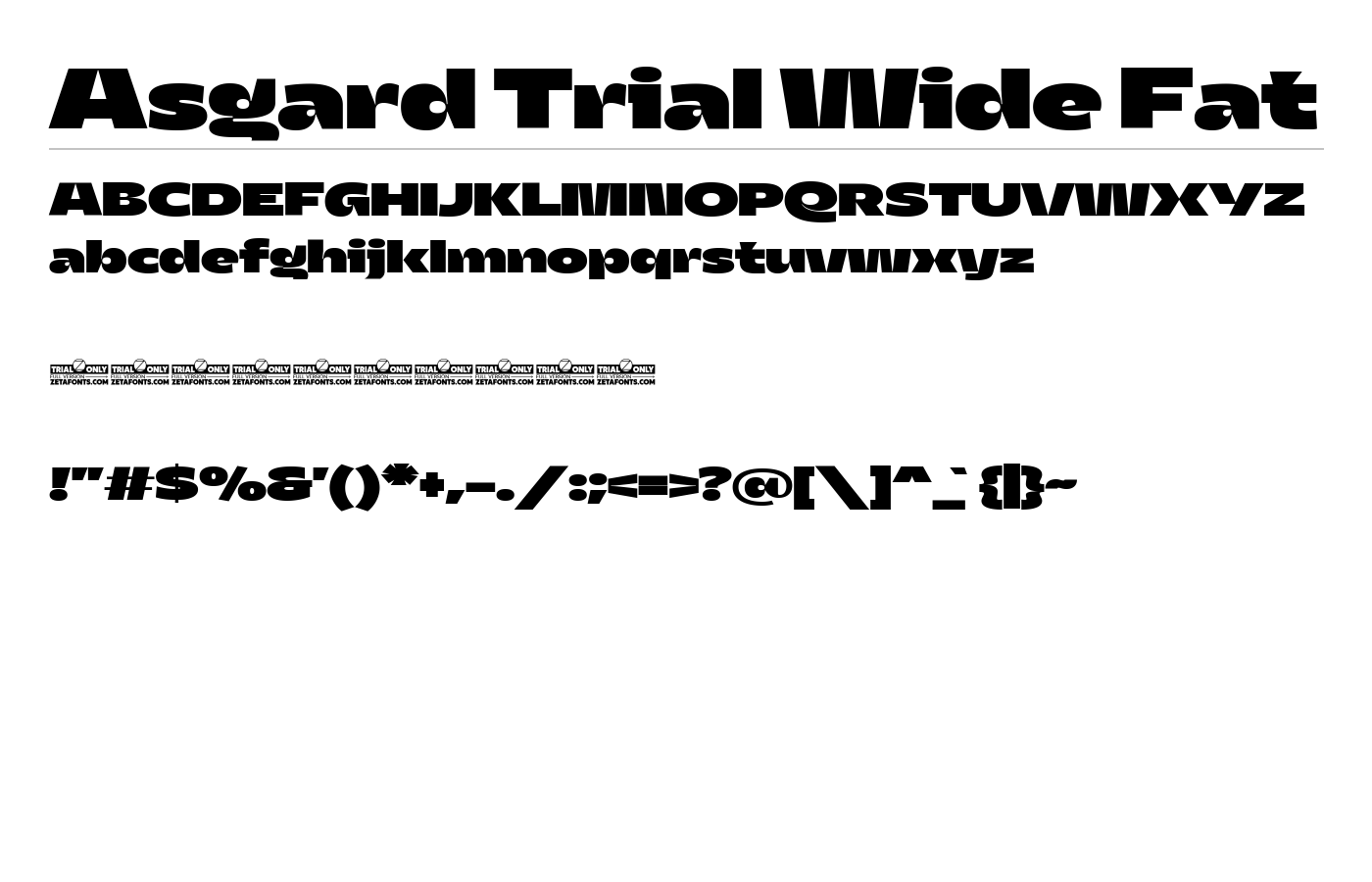
Asgard Trial is a bold, wide sans-serif font with a strong, geometric feel and playful curves that add character to its otherwise robust letterforms. Its heavy weight and high contrast make it ideal for impactful headlines or branding that demands attention and a modern, confident style. This font works well for posters, logos, and packaging where a bold, dynamic presence is needed.
Asgard Trial Font
About Asgard Trial Font
| Font family | Asgard Trial Font |
| Languages supported | Latin, Greek, Cyrillic, Symbols |
| Designer | Francesco Canovaro |
| Font subfamily | Expanded |